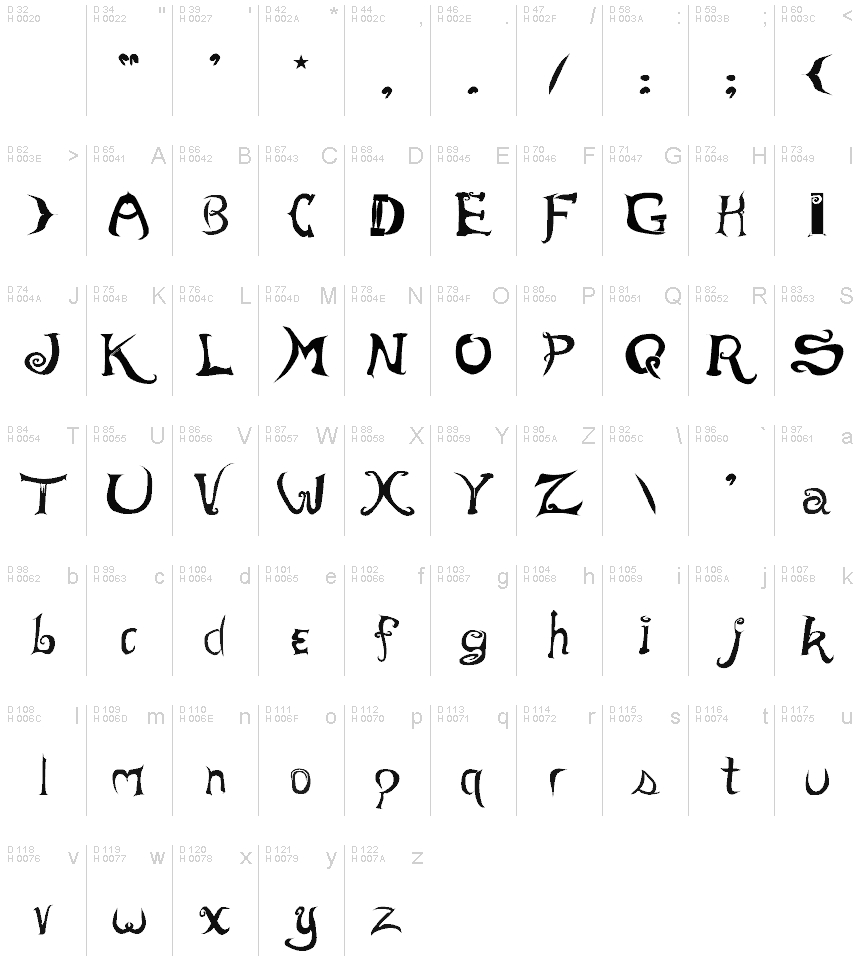
morevil
Morevil is a captivating display font that exudes a sense of dark, Gothic charm. Designed by Caffeen Fonts, this typeface boasts a distinctive aesthetic, with its sharp, angular letterforms and an otherworldly, almost demonic flair.
The font's striking visual presence lends itself particularly well to a range of applications, from horror-themed branding and editorial design to fantasy-inspired packaging and digital interfaces. Its bold, attention-grabbing presence makes Morevil an invaluable asset for designers seeking to create a sense of mystery, danger, or the macabre.